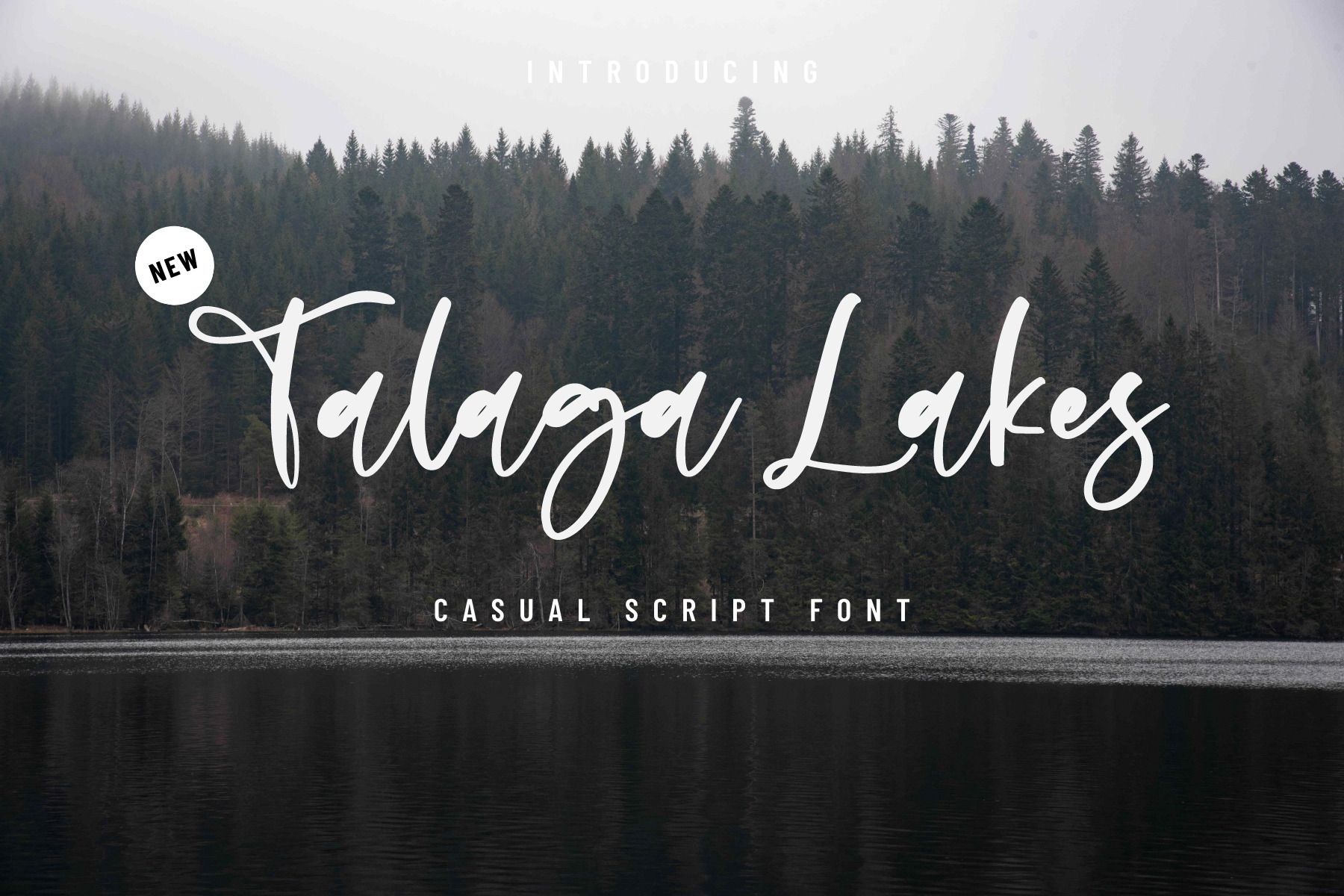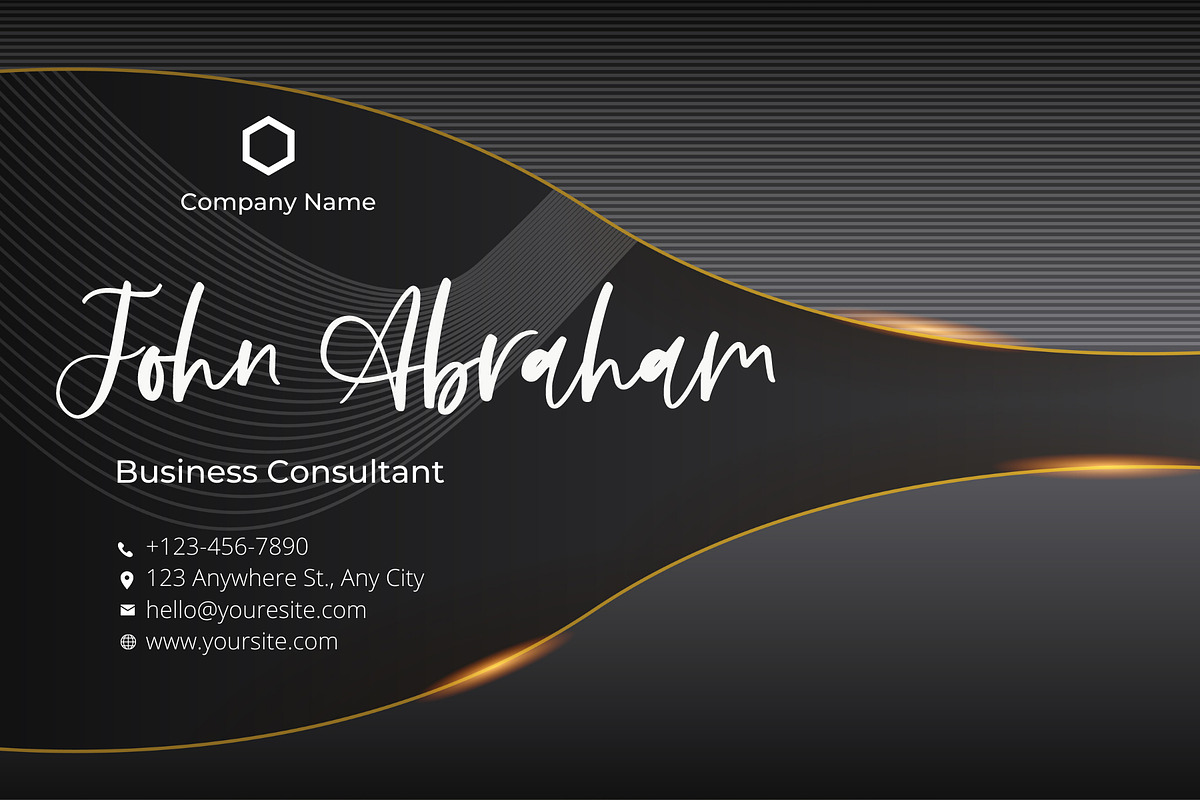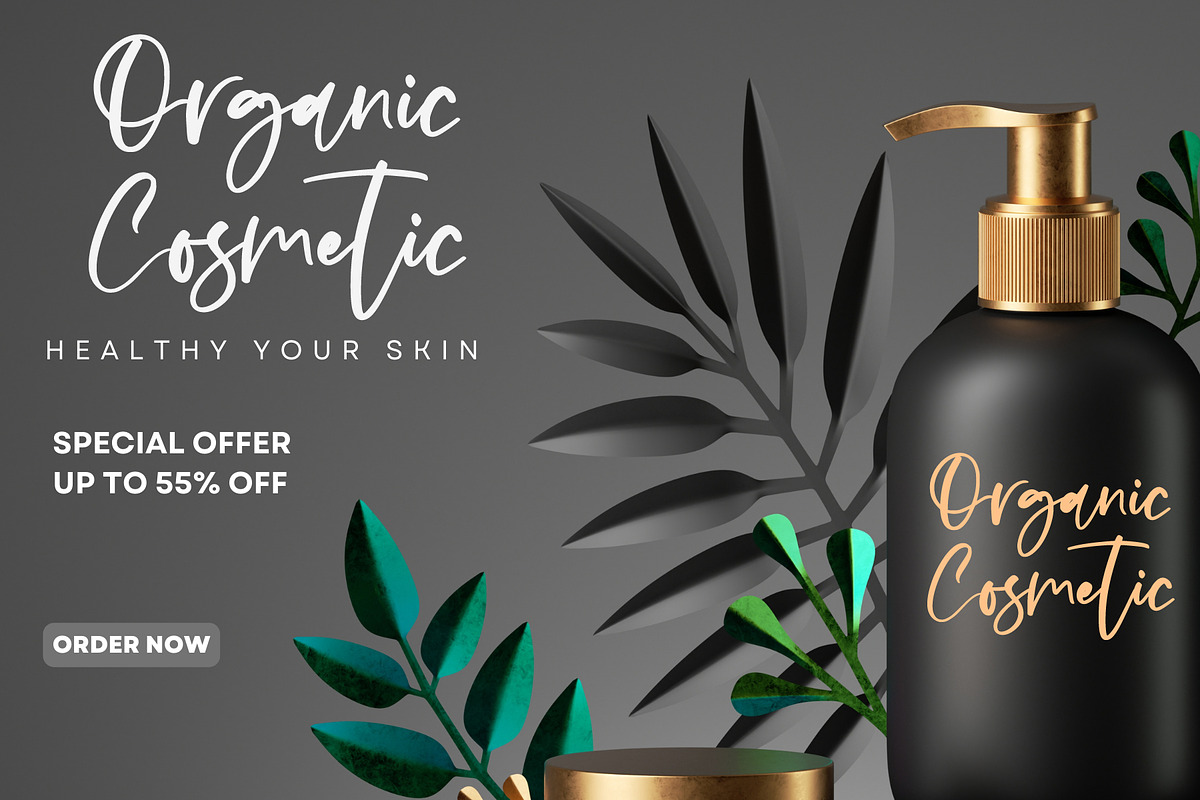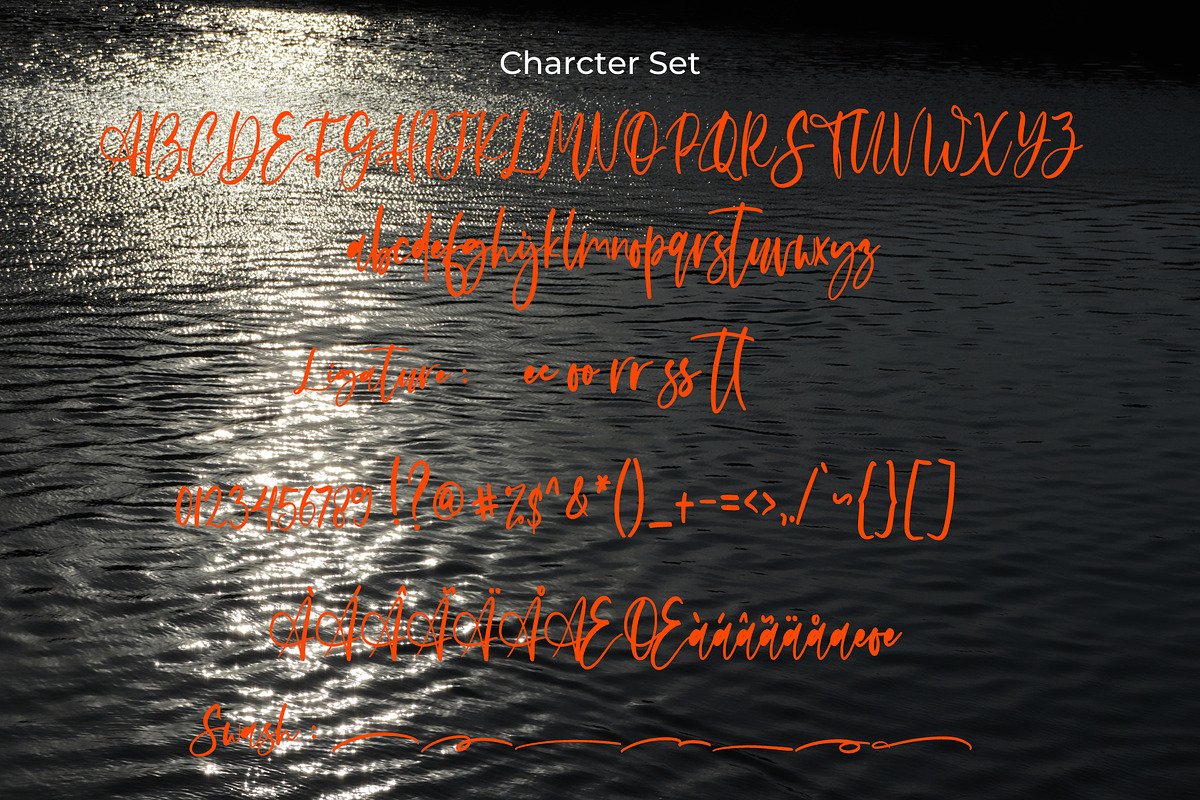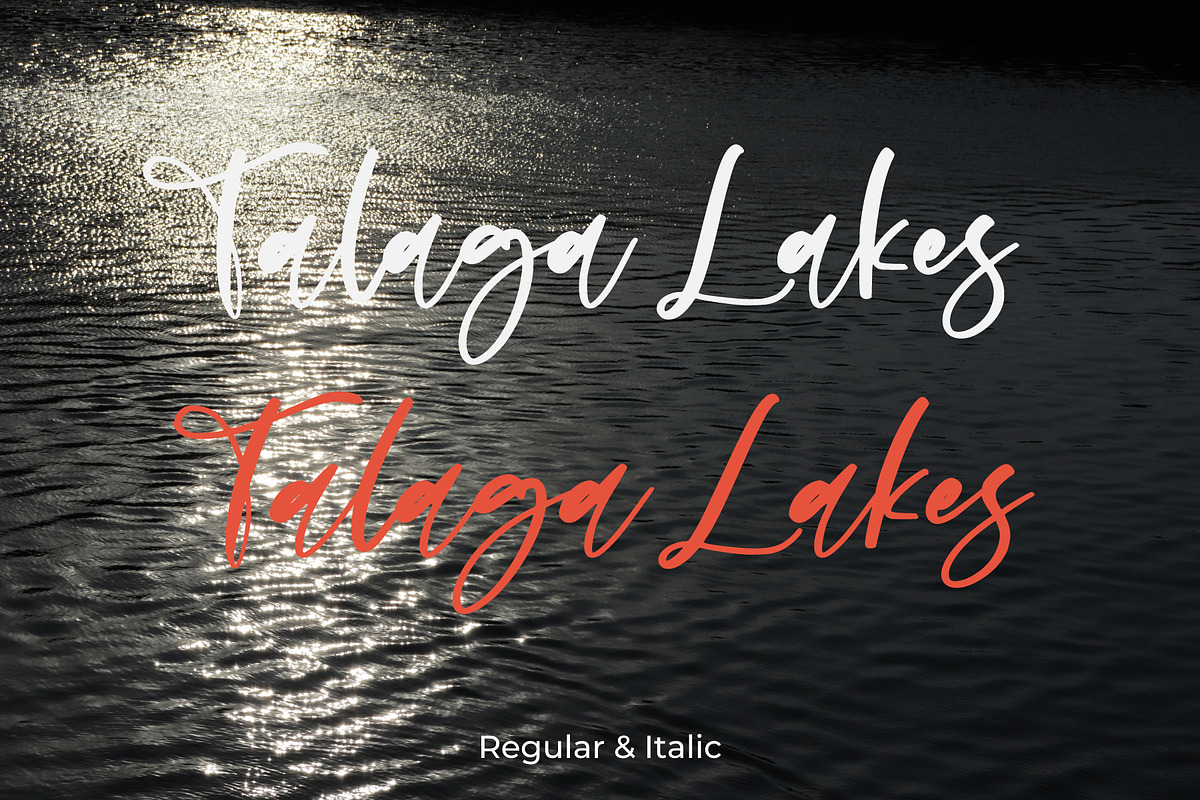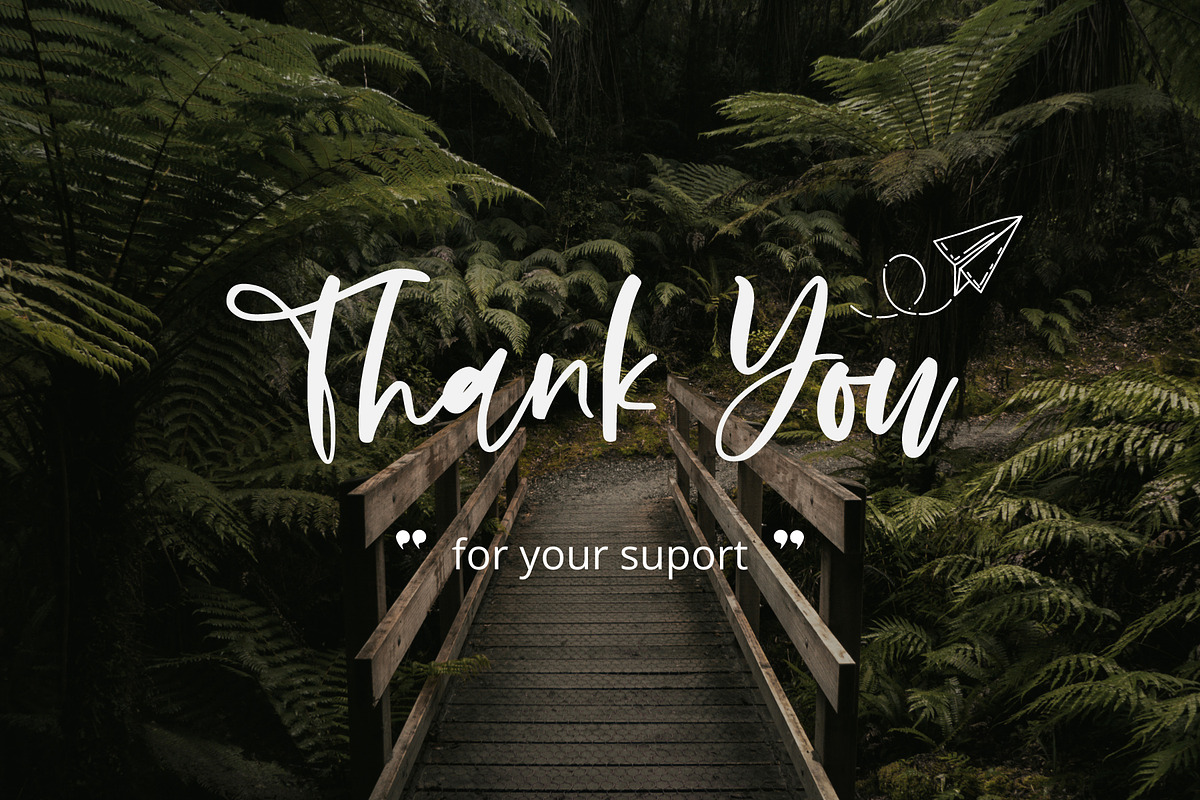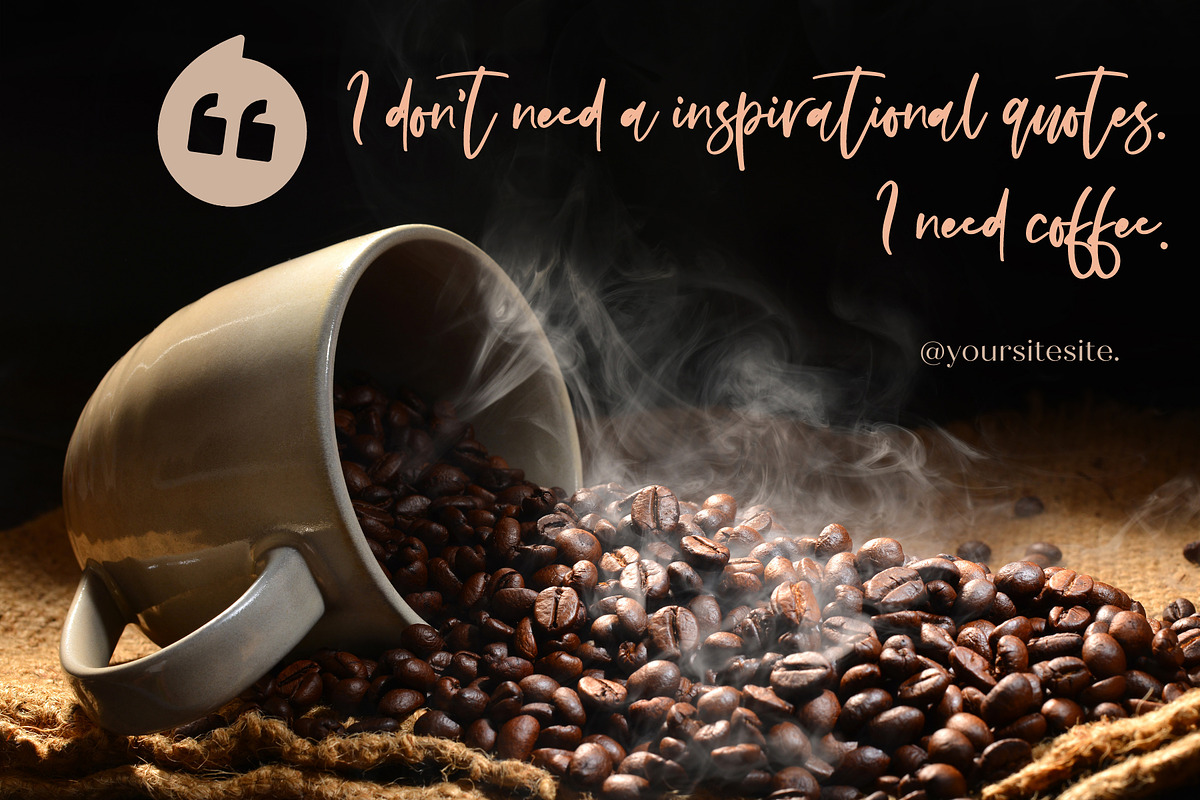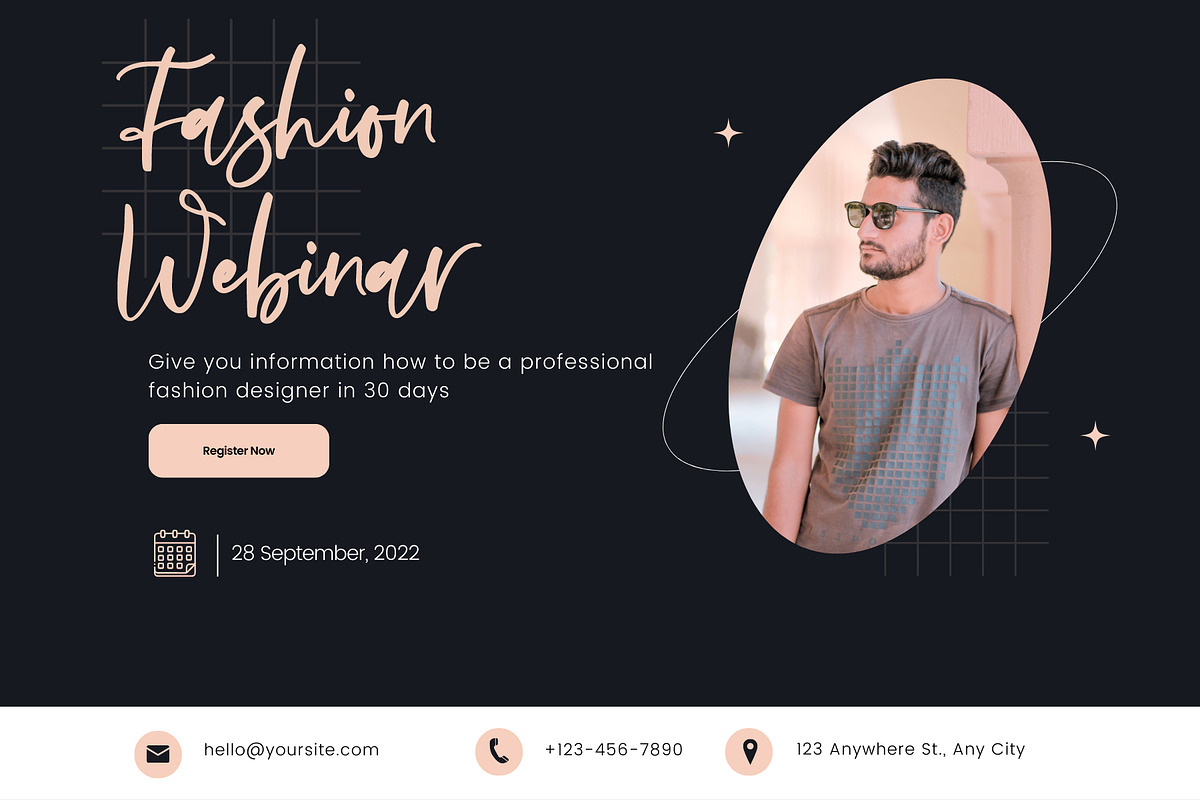
Talaga Lakes - Casual Script Font
Introducing
Talaga Lakes Font
Talaga Lakes is a casual script font. Its modern charm makes it appear wonderfully, readable, and, ultimately, incredibly versatile. This font will look outstanding in any context, whether it’s being used on busy backgrounds or as a standalone headline!